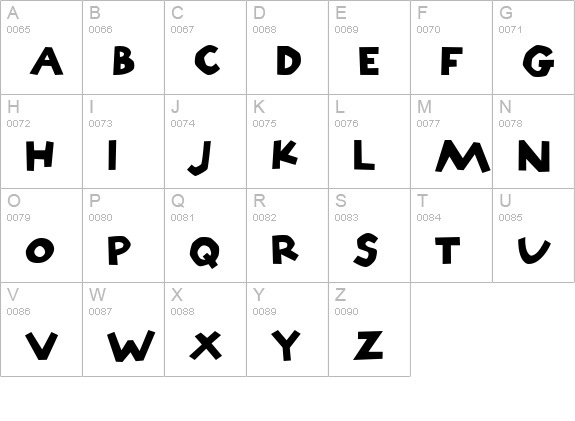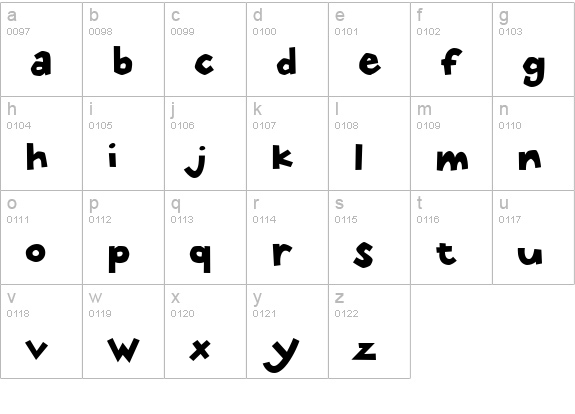
Stone Hinge Font Details
Stone Hinge font is a unique and versatile typeface that exudes a sense of strength and durability. Inspired by ancient stone structures, this font features bold lines and sharp edges that make a bold statement in any design project. Its rugged yet refined appearance makes it perfect for a wide range of applications, from branding to signage to editorial design. What sets Stone Hinge font apart is not only its distinctive look, but also the fact that it is available for free download at FontsMarket.com. This means that you can easily incorporate this striking font into your projects without breaking the bank. Whether you're working on a logo, poster, or website, Stone Hinge font is sure to add a touch of timeless elegance and sophistication. Download it today and unleash the power of this stunning typeface in your next design endeavor.